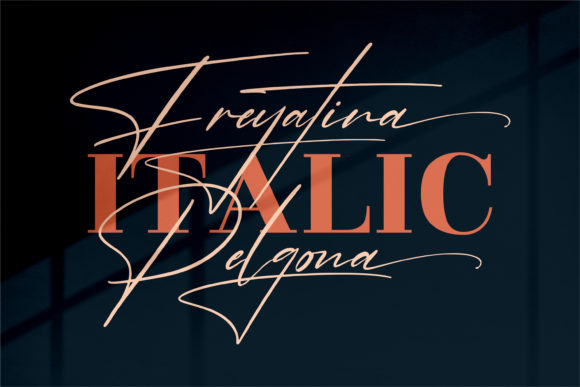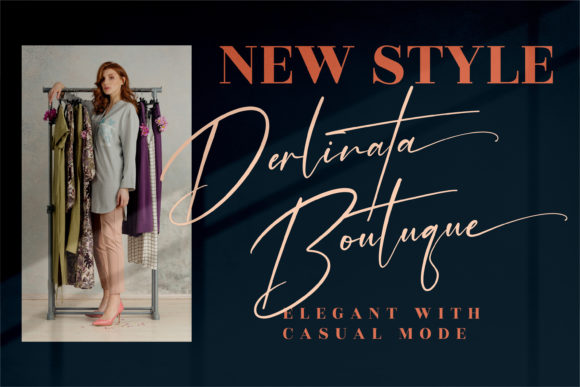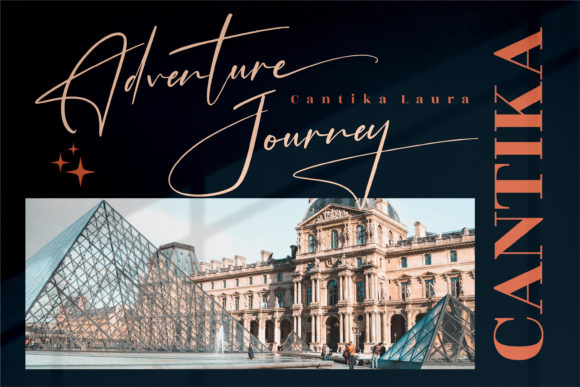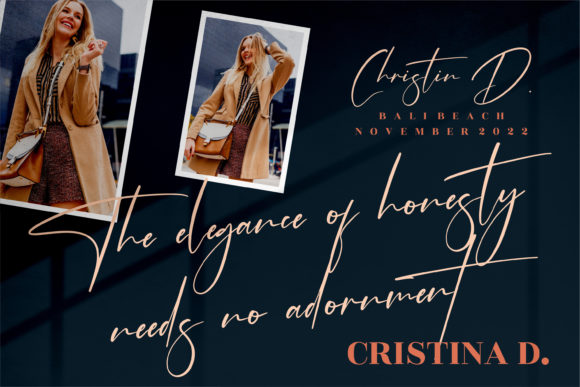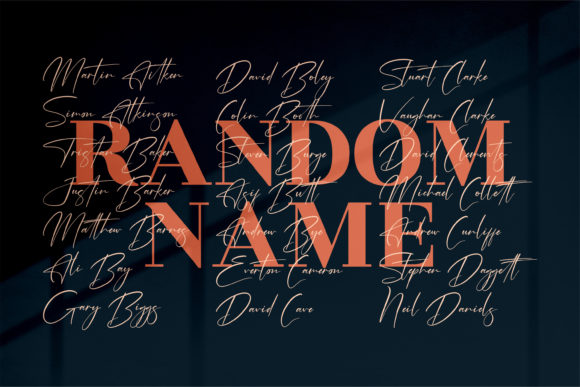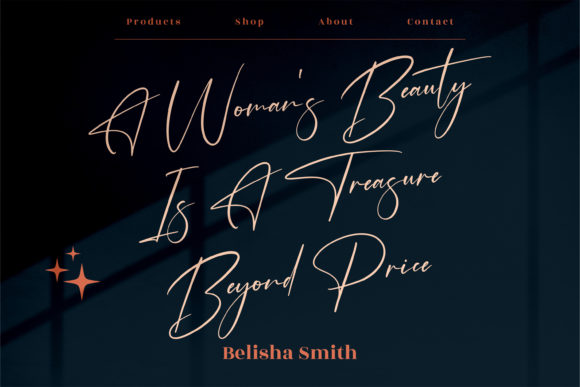
Introduction to Freyatina Pelgona Font
Freyatina Pelgona is a thin lettered, beautiful and luxurious handwritten font.
Key Features of Freyatina Pelgona Font